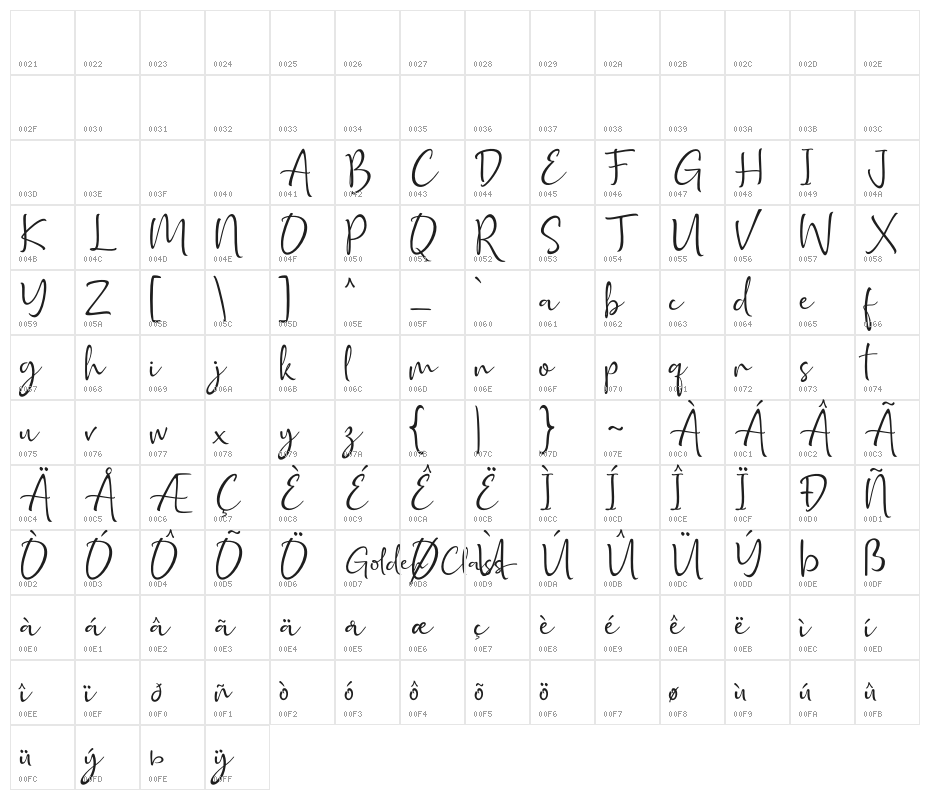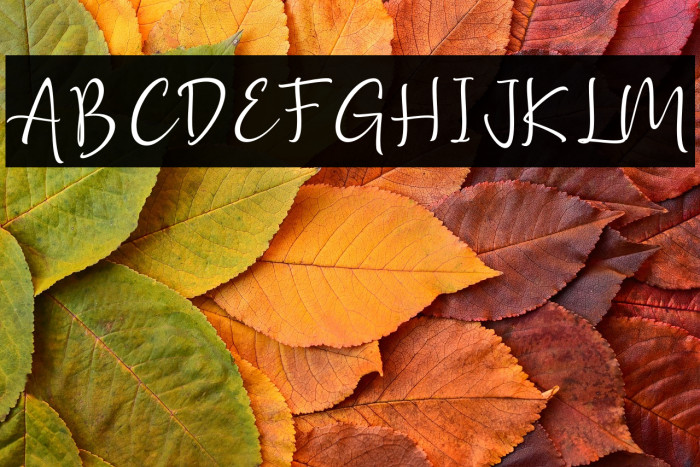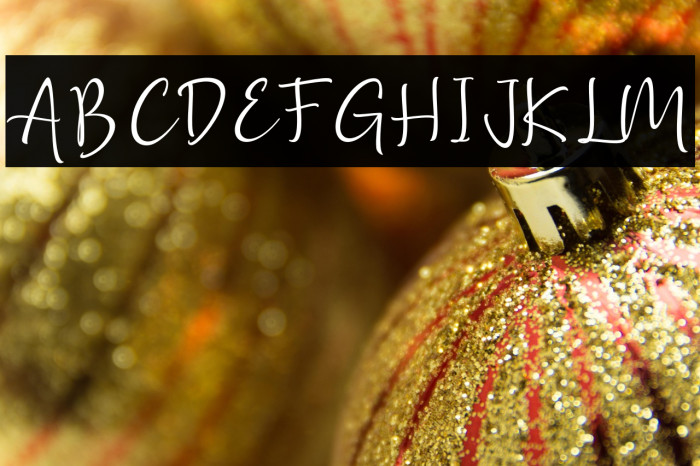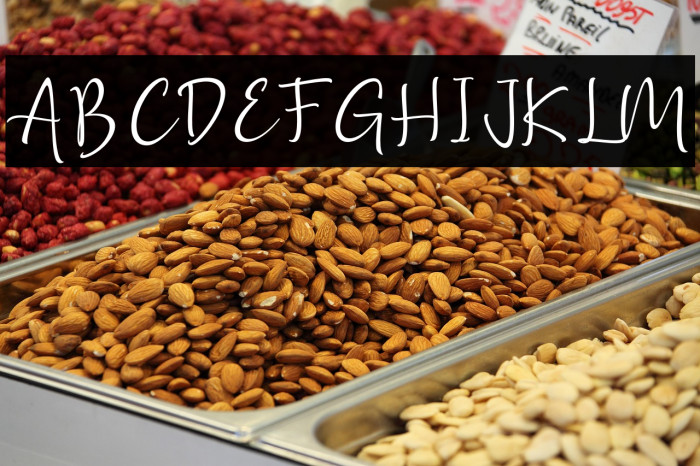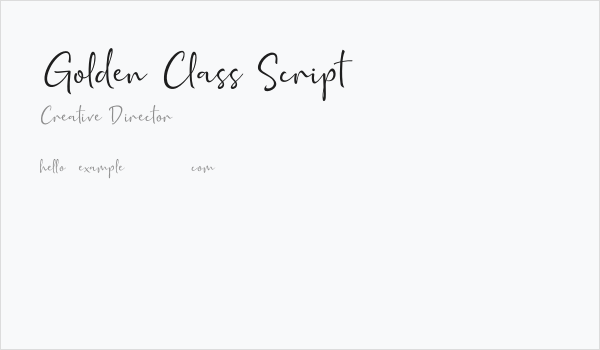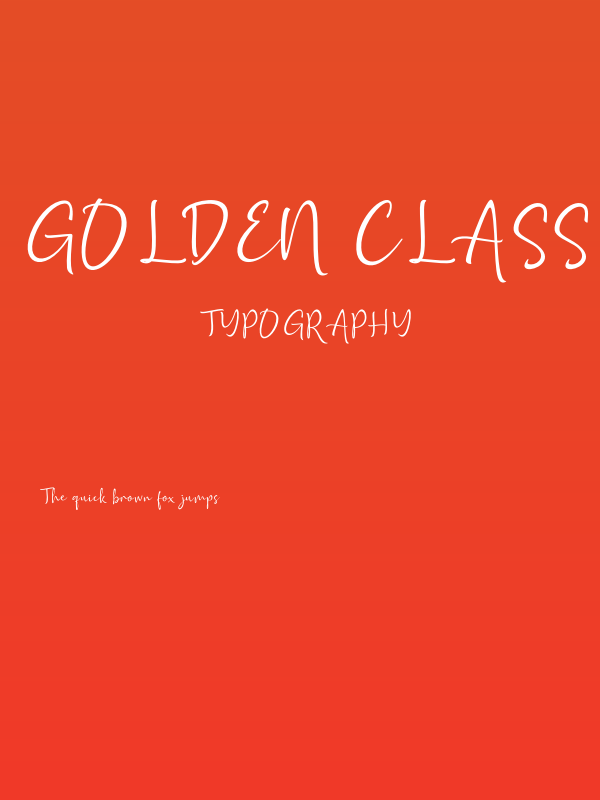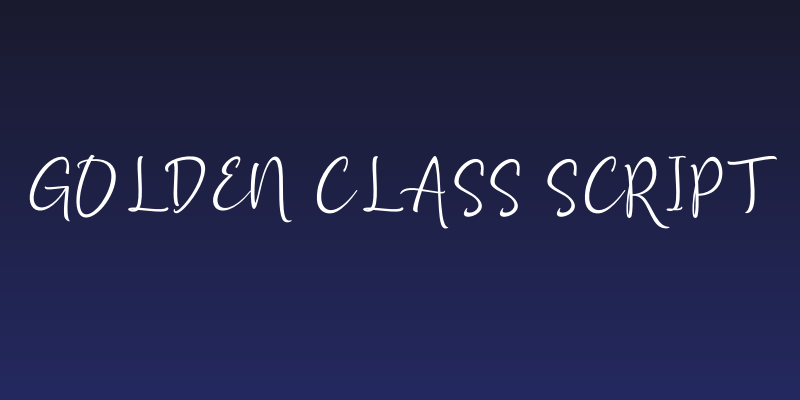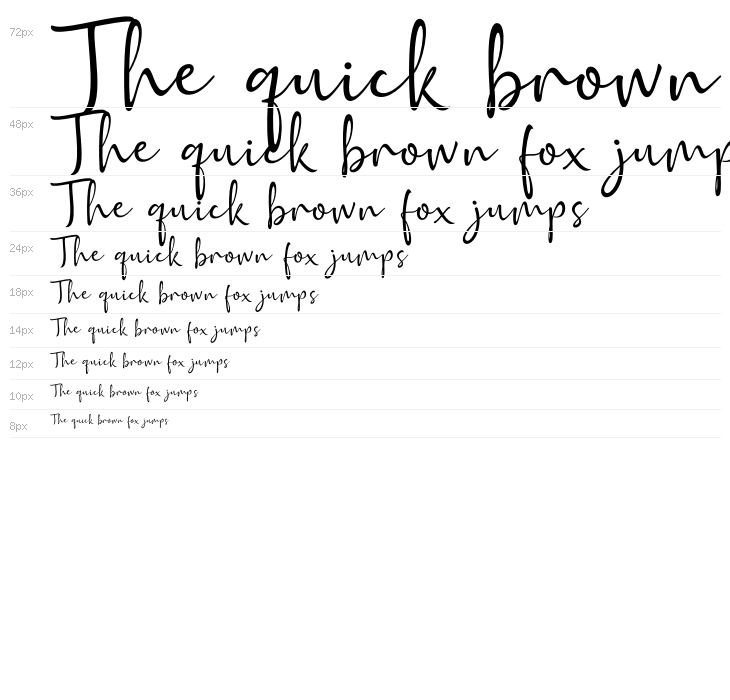
Golden Class Script Font
Golden Class Script Description
This font exudes a casual yet elegant handwritten style, characterized by its fluid and organic strokes. The uppercase letters are slightly more structured, maintaining a balance between formality and playfulness. The lowercase letters are more expressive, with loops and curves that add a personal touch. The overall appearance is dynamic and lively, making it suitable for projects that require a personal or artistic flair. The font maintains readability while offering a unique aesthetic, perfect for creative designs.
| Use Case | Logos, Headlines, Invitations |
| Proposed Projects | Ideal for wedding invitations, greeting cards, personal branding, and artistic projects. |